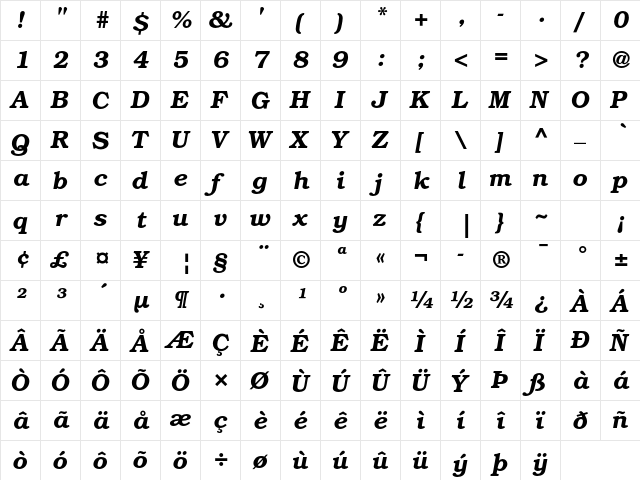
Bookman ITC Std Demi Italic
| Designer | Edward Benguiat |
Design Context for Bookman ITC Std Typeface
Bookman ITC Std offers clean, dependable letterforms without strong stylistic allegiance, making it a practical choice for designers who need flexibility. The dynamic lean of this cut emphasises speed and emphasis in any layout.
Pro Tip: Try Bookman ITC Std for annotation and caption copy alongside an upright companion — the contrast in angle creates a dynamic but ordered typographic system.